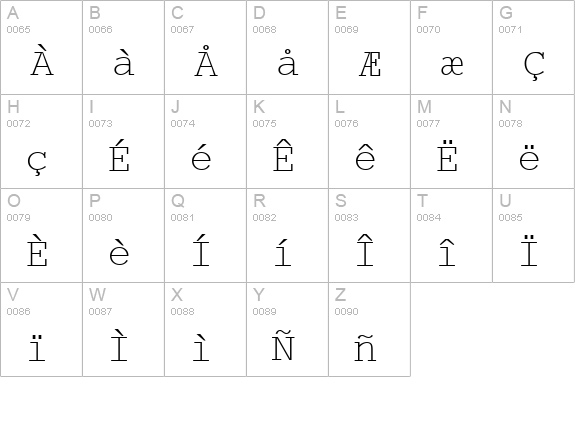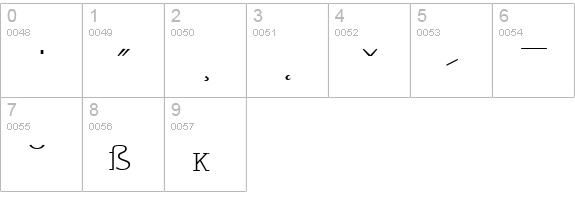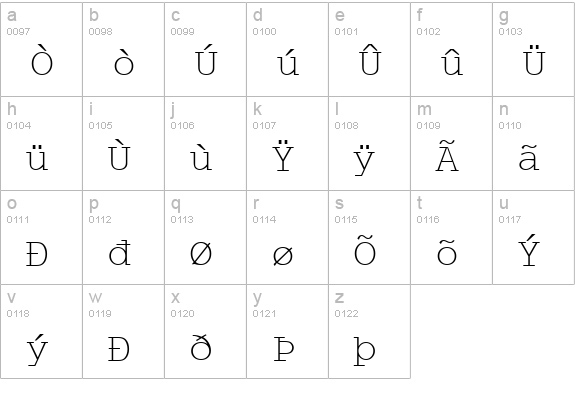
WP MultinationalA Courier Font Details
WP MultinationalA Courier font is a versatile and stylish typeface that is perfect for a wide range of design projects. With its clean and crisp lines, it adds a touch of professionalism and sophistication to any text. Whether you're designing a logo, creating a website, or working on a print project, this font will make your text stand out. What sets WP MultinationalA Courier font apart is that it is freely available to download at FontsMarket.com. This means that you can access this amazing font without spending a dime. It's a great opportunity for designers, students, and anyone who wants to add a touch of elegance to their projects without breaking the bank. The WP MultinationalA Courier font is not only aesthetically pleasing, but it is also highly legible and easy to read, making it ideal for both large blocks of text and small captions. Its timeless design ensures that it will remain relevant and stylish for years to come, making it a valuable addition to any font collection. Whether you're working on a personal project or a professional design, WP MultinationalA Courier font will help you create stunning visuals that leave a lasting impression. So why wait? Head over to FontsMarket.com and download this incredible font for free today!